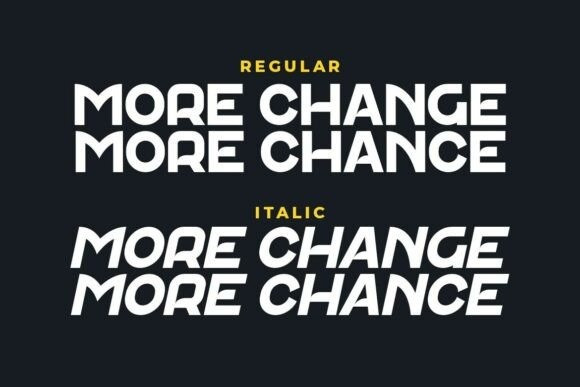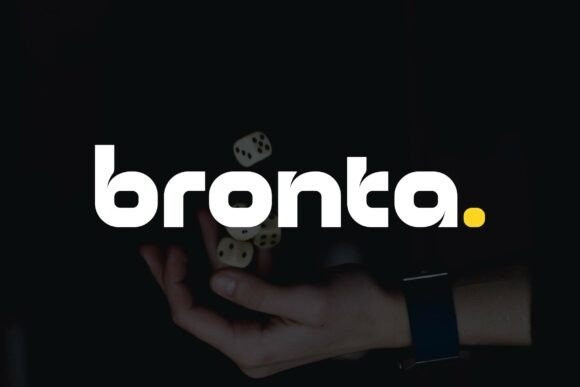
Bronta Round Font
Bronta Round Font is a modern logo font designed to make bold brand statements. With clean lines, geometric balance, and sleek curves, Bronta delivers a fresh and confident look that’s ideal for logos, headlines, packaging, and social media graphics.